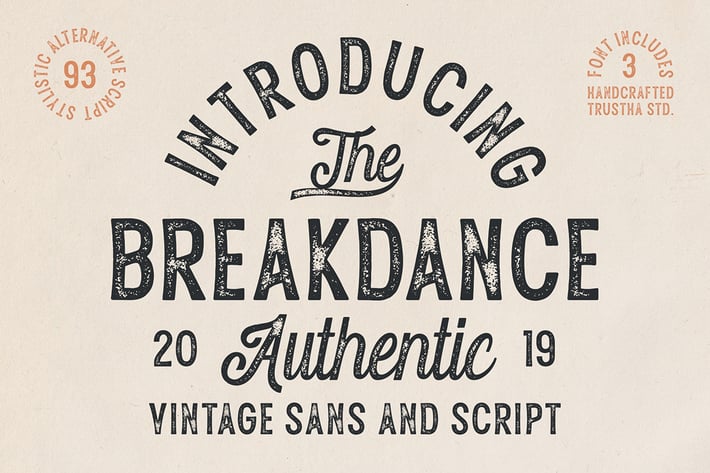
Breakdance Vintage Font Duo
Breakdance is a vintage font duo. Combination of sans and script with sharp textures making all your creative projects get vintage and authentic impression!
- Uppercase & lowercase
- Number & punctuation symbols
- Stylistic Sets
- International characters (Multilingual)